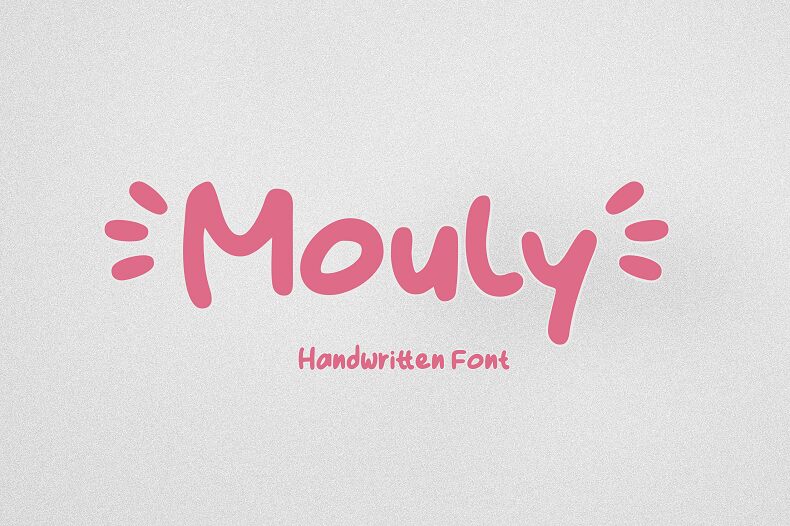
Mouly, a whimsical handwritten font designed by Vaiminit, brings a playful touch to any project.
Its lively and organic strokes give an air of creativity and spontaneity, making it perfect for children's books, greeting cards, and invitations. With its charming irregularities and unique character variations, Mouly adds a touch of personality to logos and branding materials. Additionally, its legibility makes it suitable for headlines in magazines or posters.